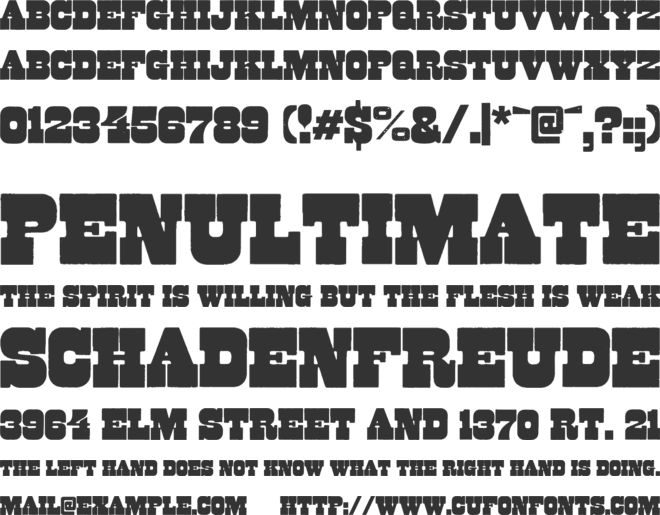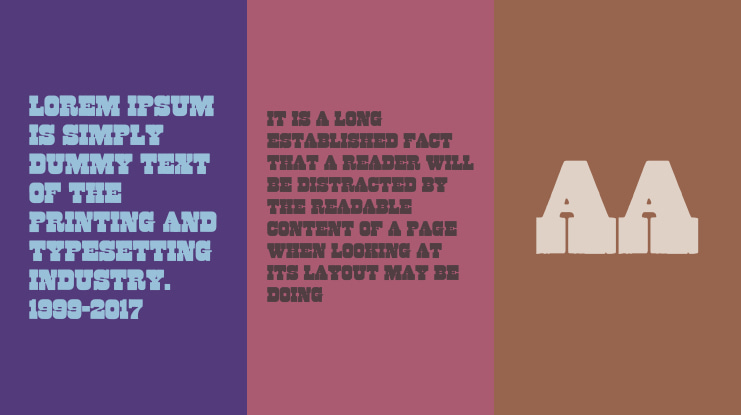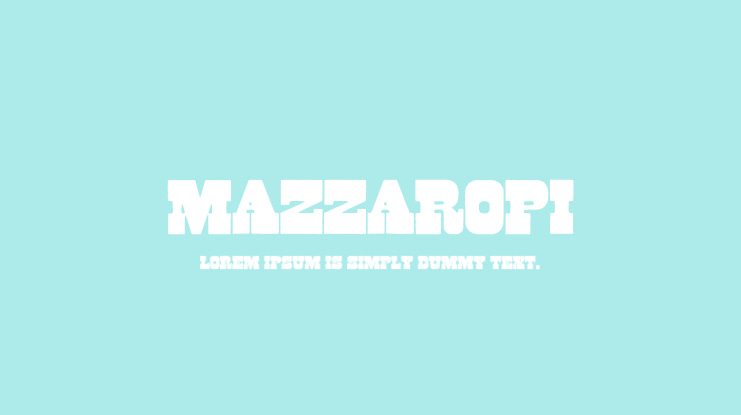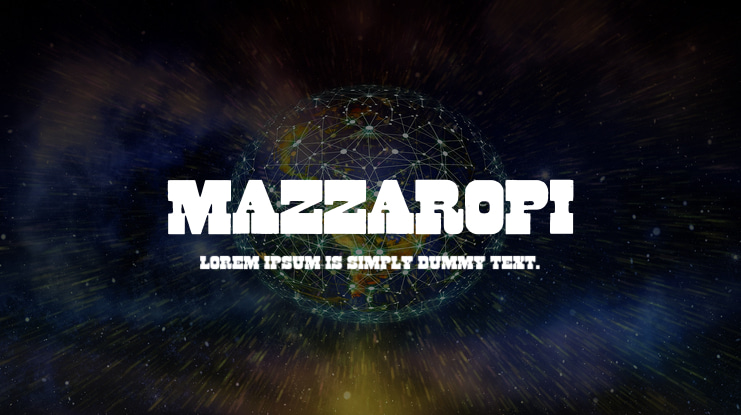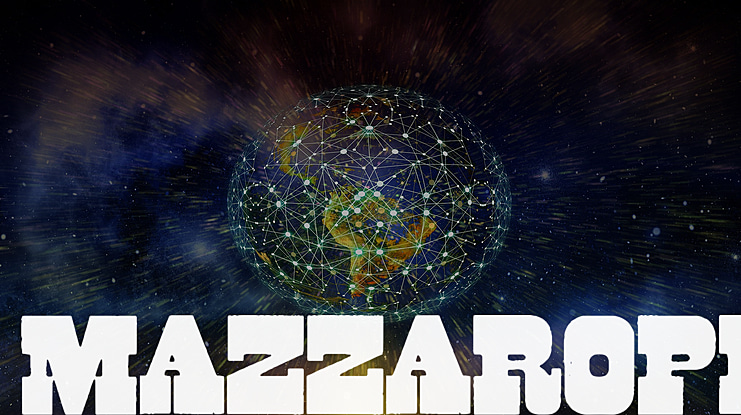
Mazzaropi Font
Rafael Nascimento
It’s a classic slab serif font, suitable for design needs with a touch of classic western. This font is a simple typographic tribute to the one who represented countryside Brazil so well through an approach that is both comic and critical. Based on some principles of appropriation of rustic “caipira” imagination, its references are inspired by vernacular letters and the deconstruction of a lost typeface from the photocomposition era (1960s/70s), Umbra 27 (Karl-Heinz Domning, 1972 for Berthold Types), also part of an aesthetic responsible for the construction of the western/hillbilly imaginary.